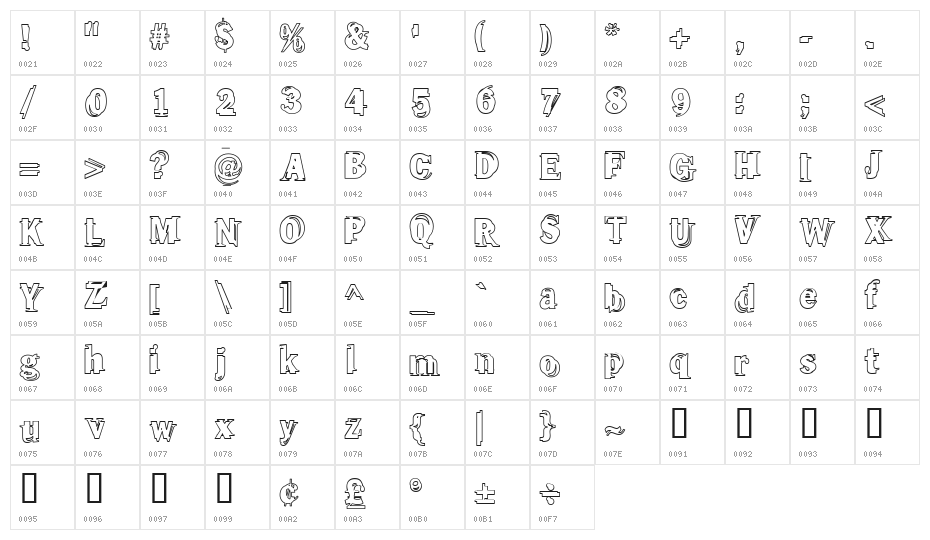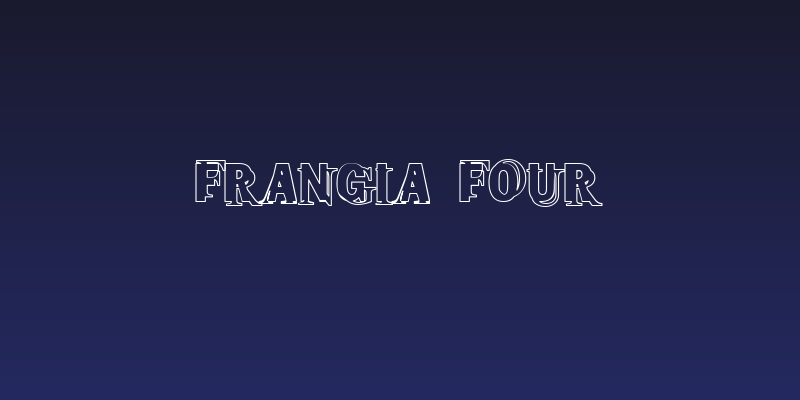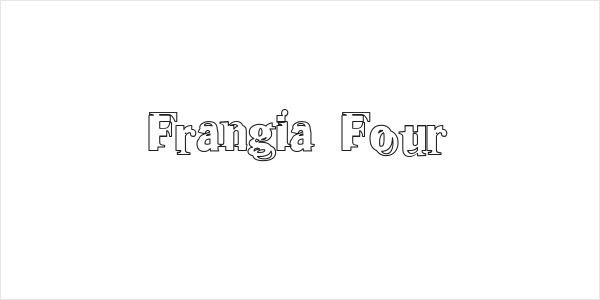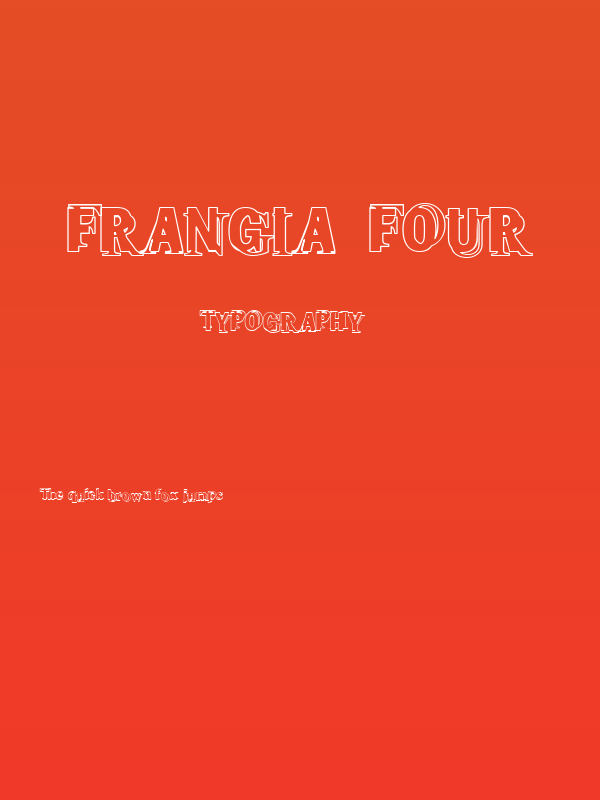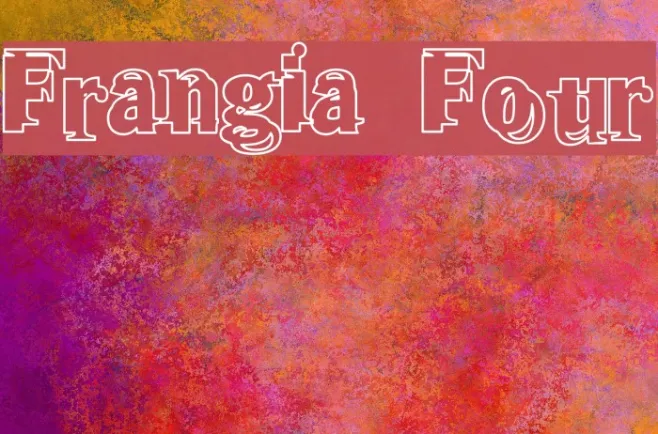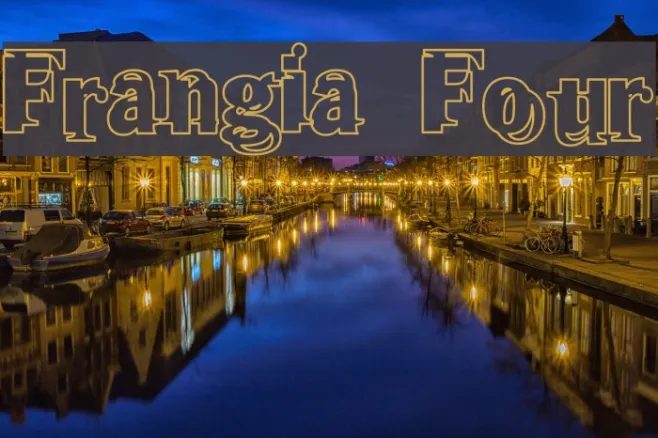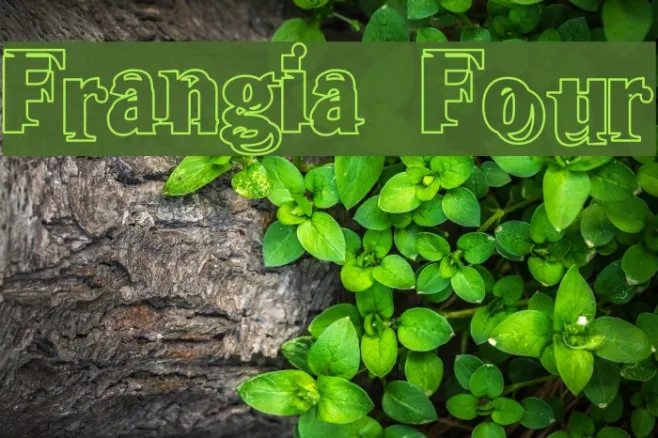
Frangia Four Font
Frangia Four Description
This font features a bold, decorative style with a strong outline that gives each character a three-dimensional appearance. The uppercase letters are robust and commanding, while the lowercase letters maintain a playful yet structured form. The numbers and special characters follow the same bold outline, ensuring consistency across all glyphs. The font's unique design elements make it stand out, with a slightly retro feel that adds character and flair. Its thick strokes and outlined style suggest a high contrast, making it ideal for attention-grabbing designs.
| Overall Style | Retro, Decorative |
| Proposed Projects | Ideal for posters, headlines, logos, and any project requiring a bold, eye-catching typeface. |